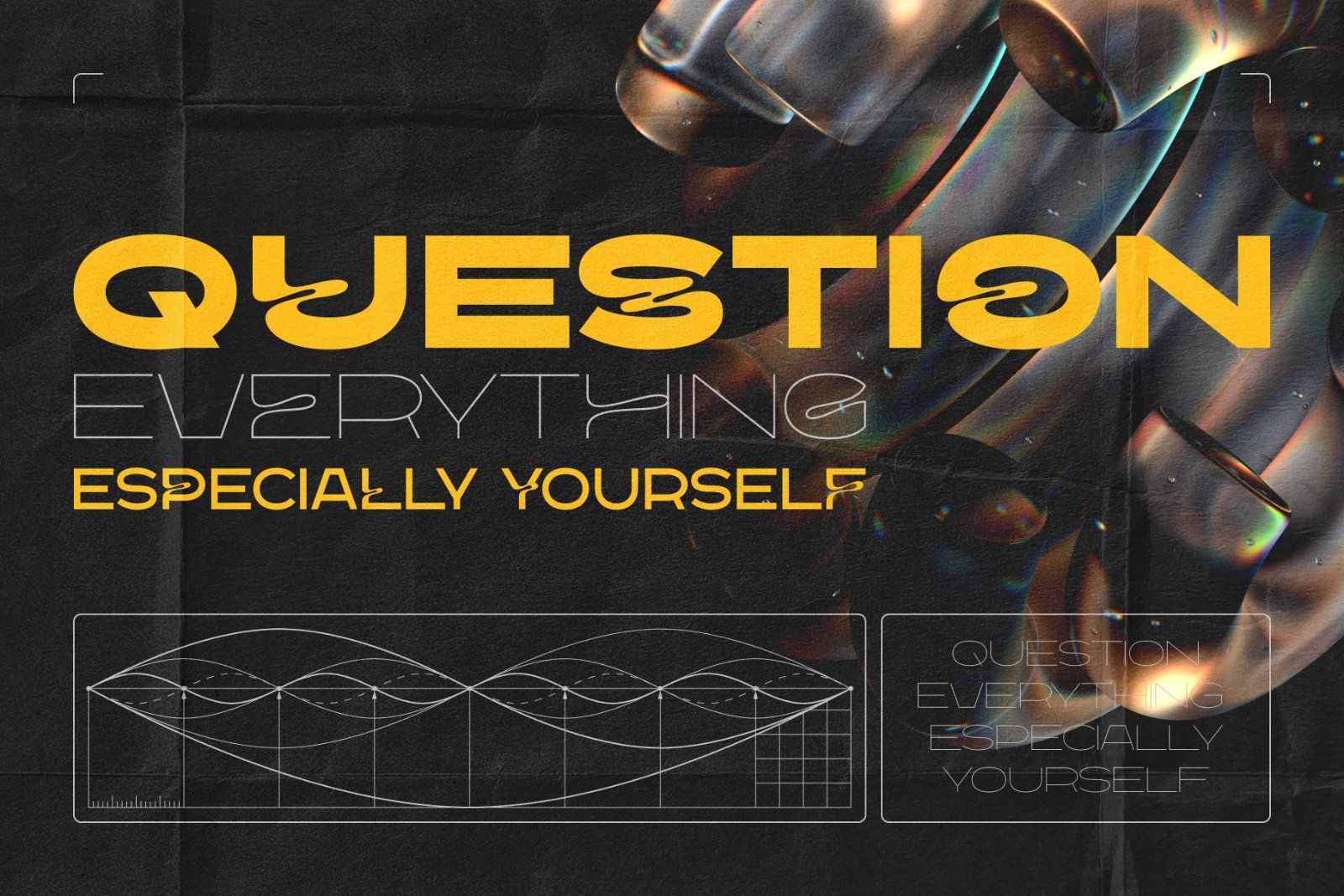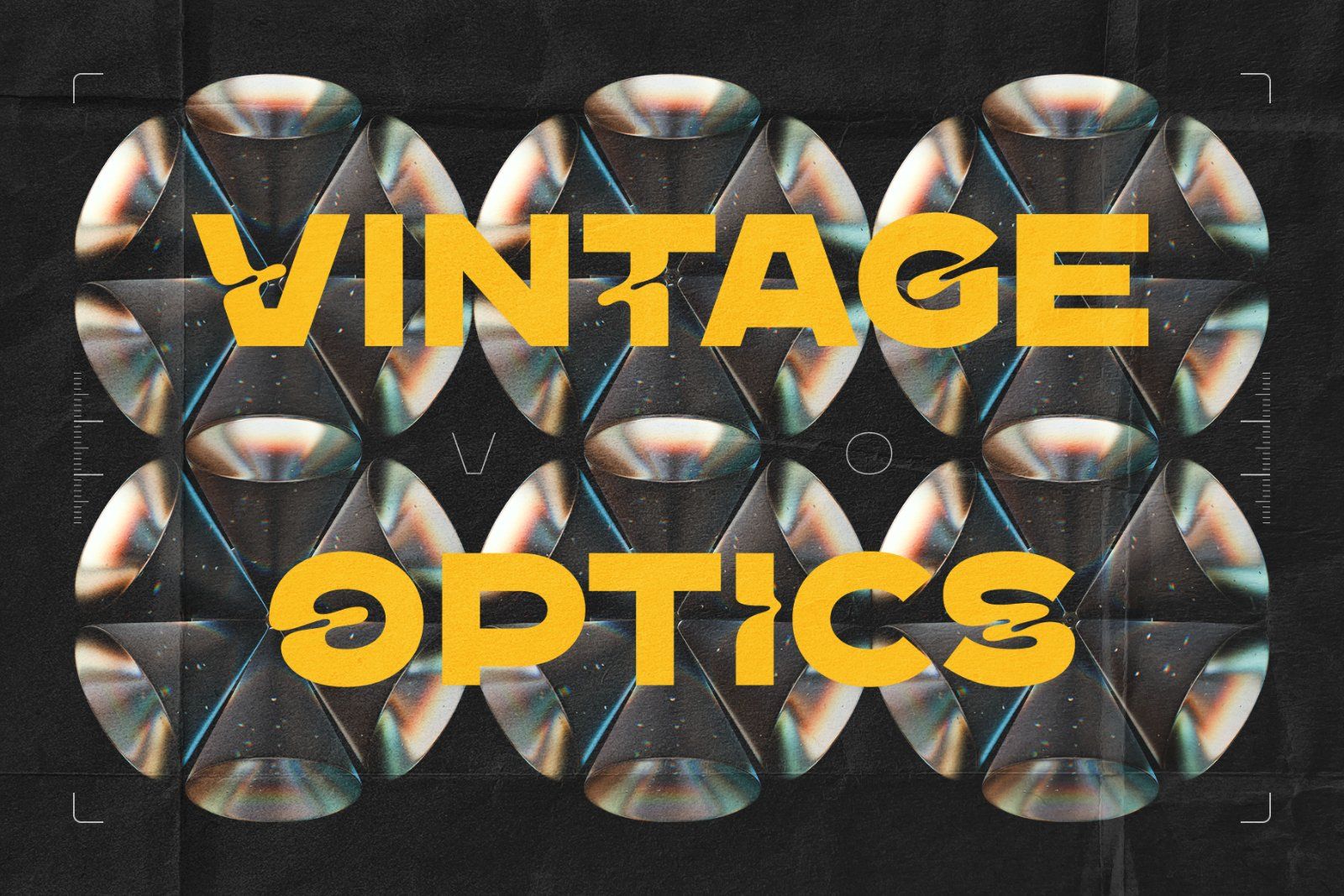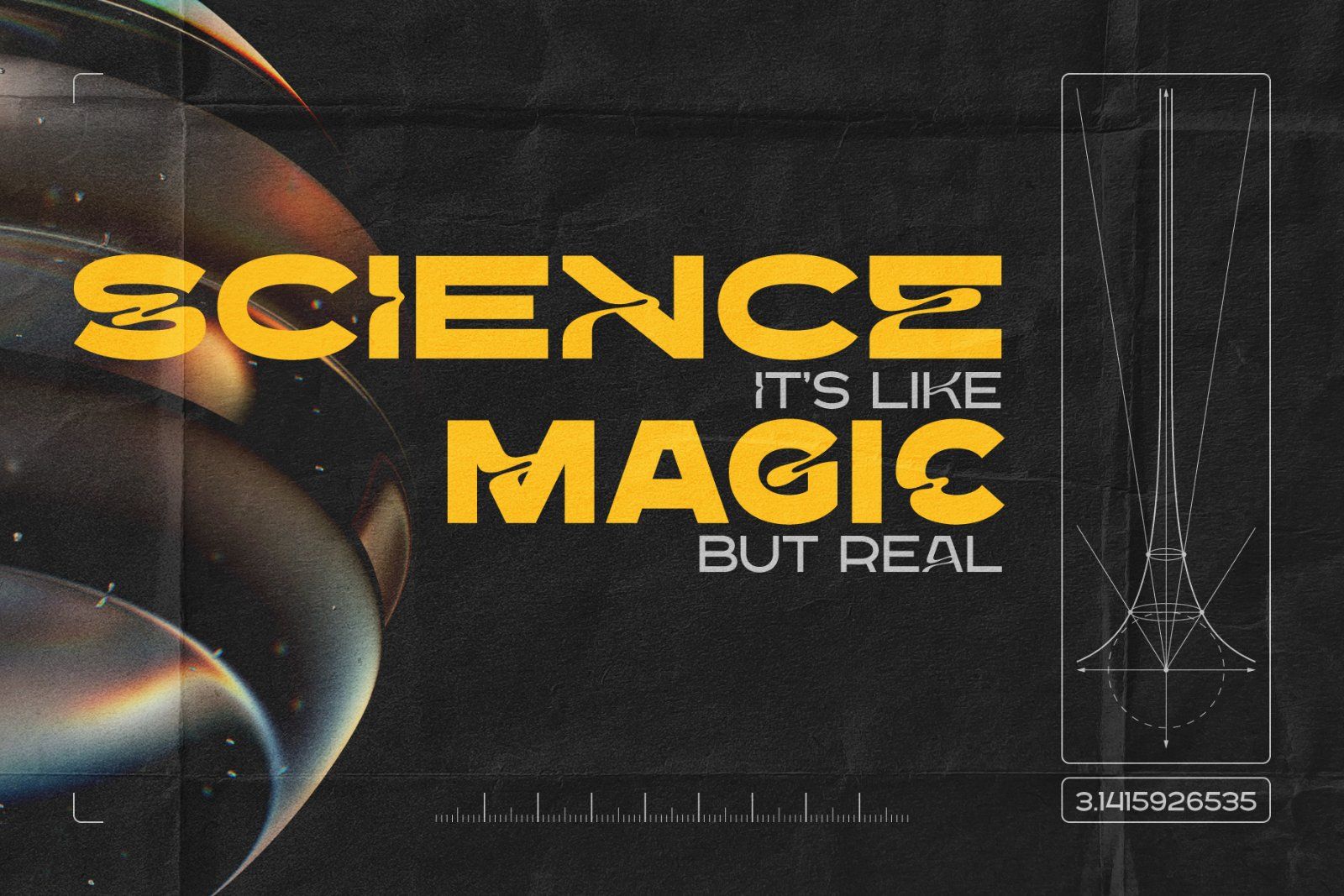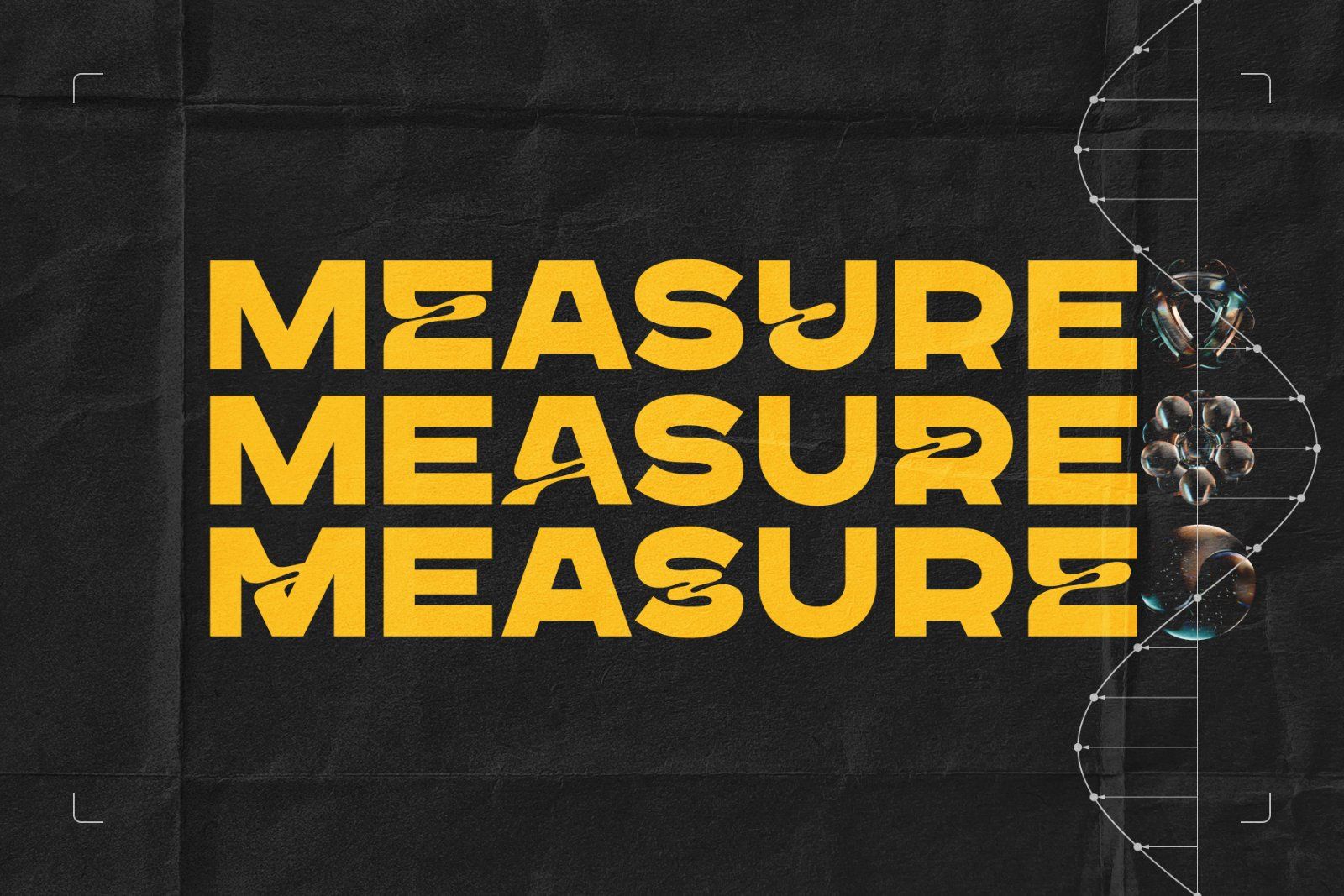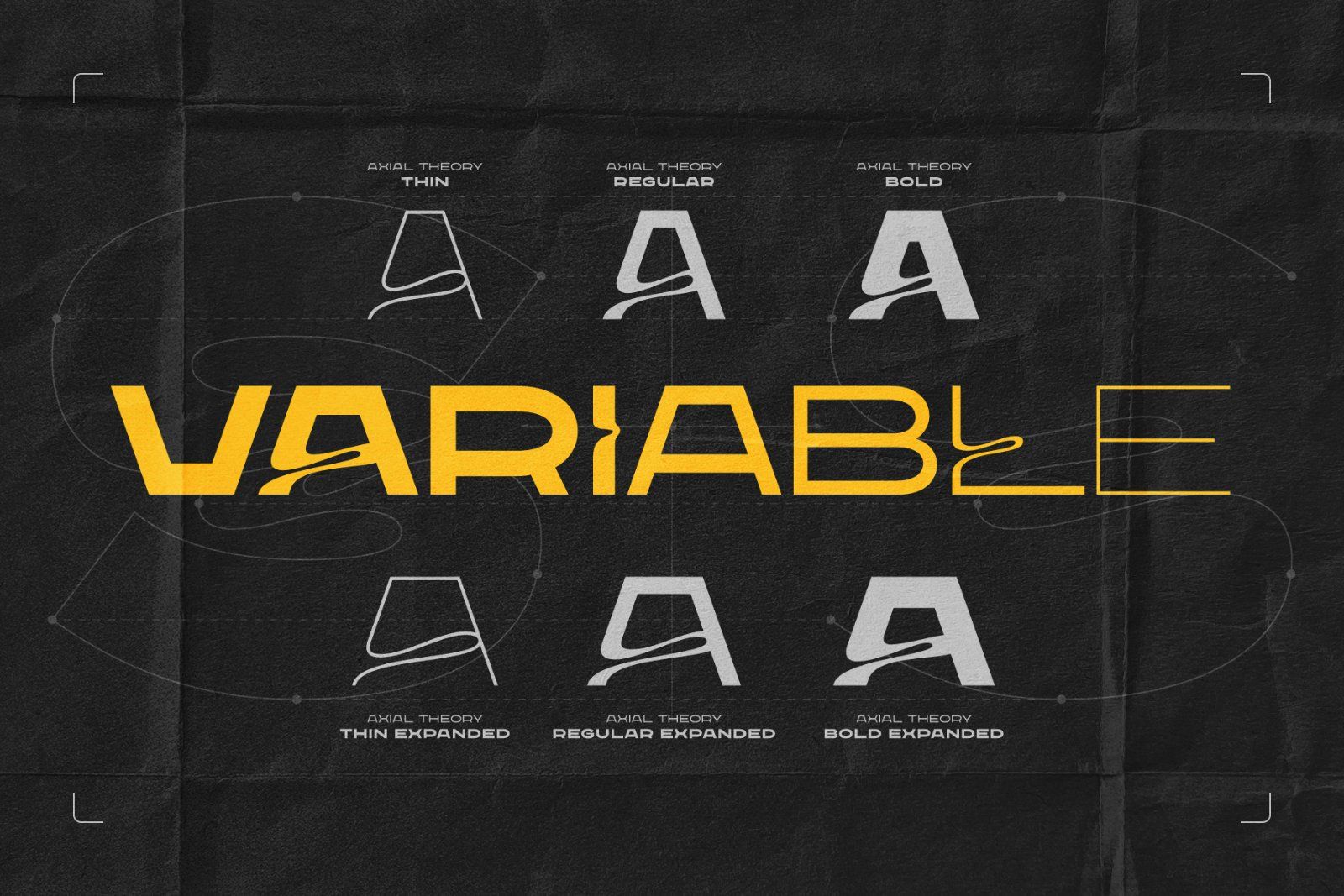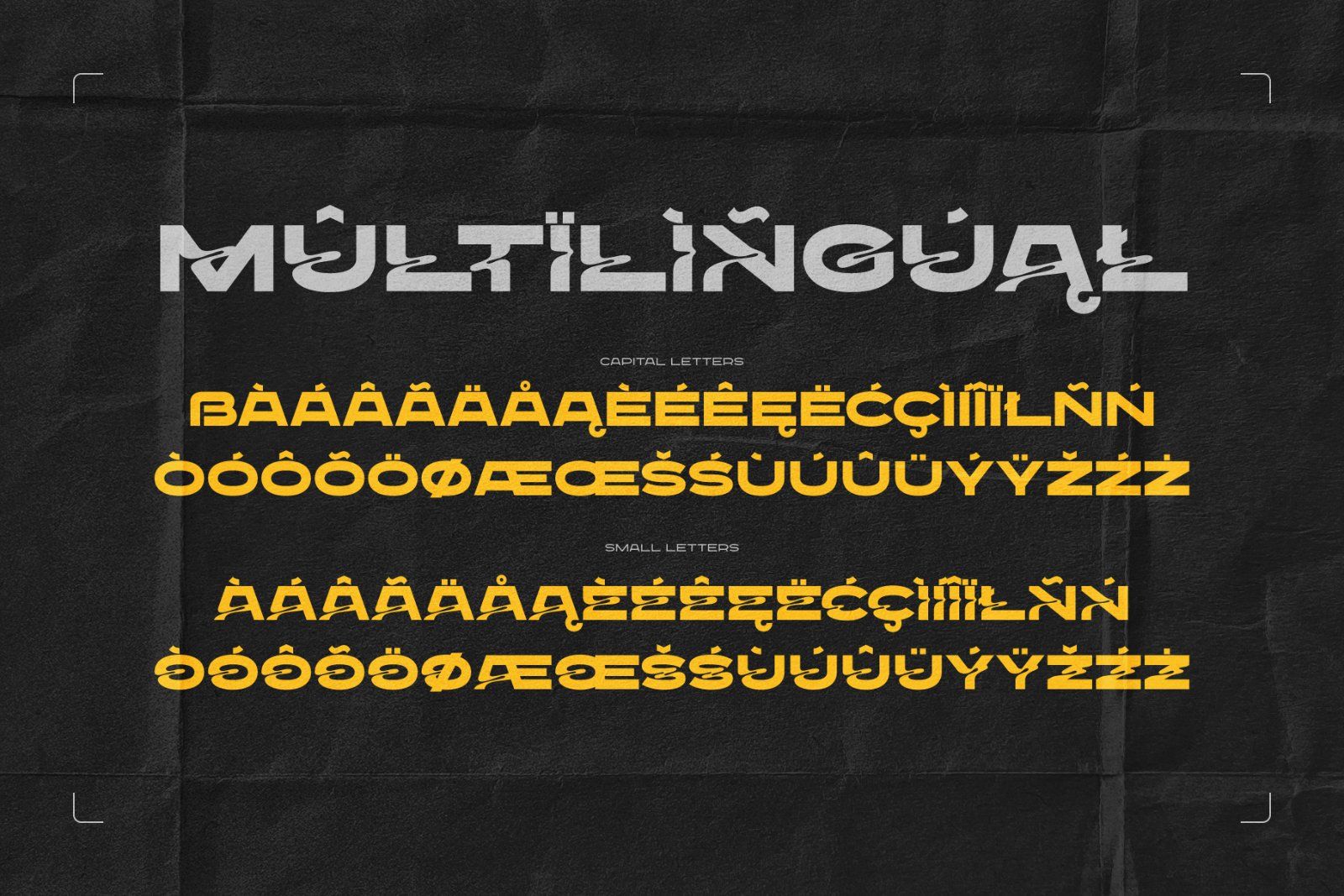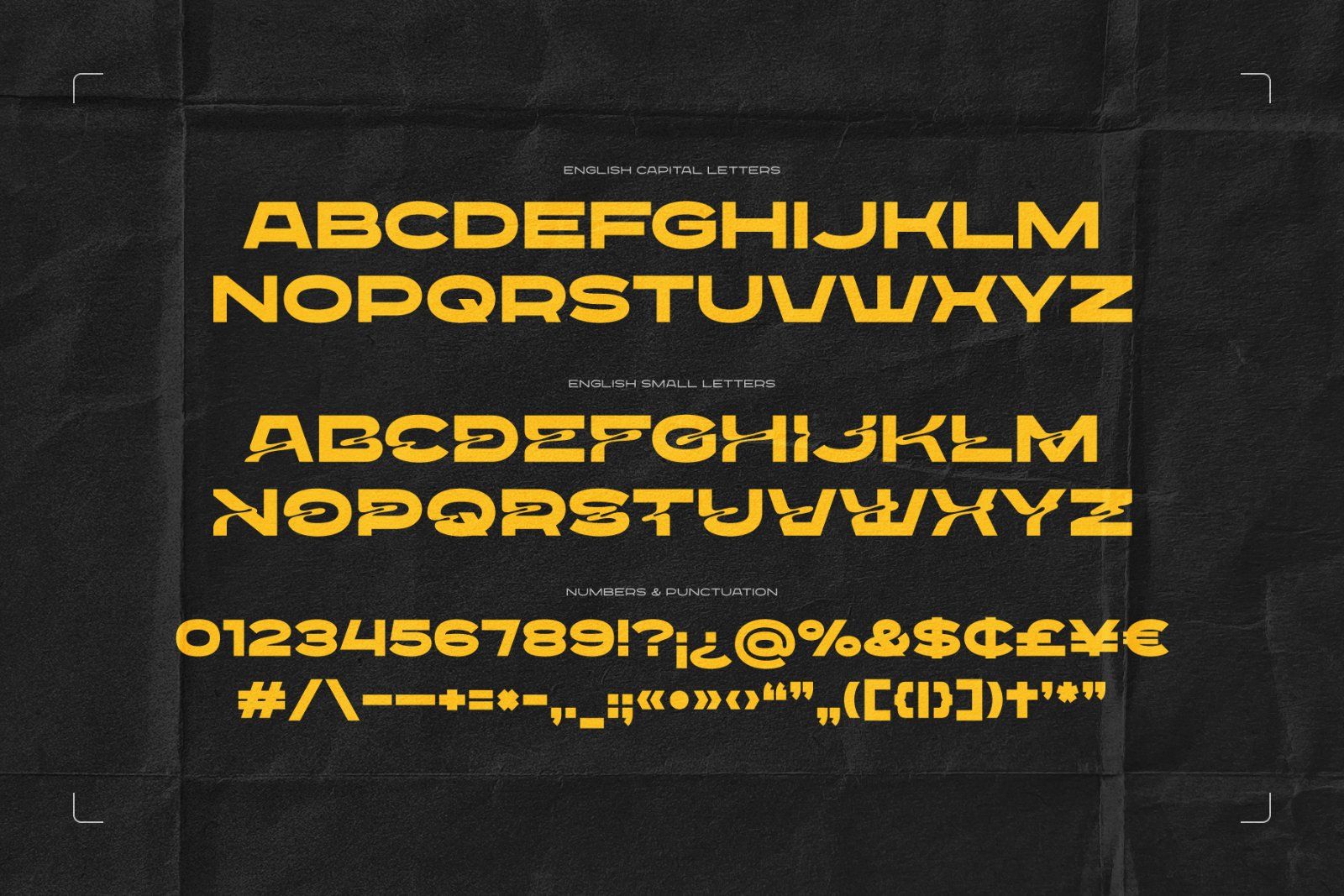
Introducing Axial Theory, a retro futuristic font set. This type family includes three weights, three width variations, and an infinitely flexible variable font. Its nicely curved letterforms bring an original vibe to your text.
Each letter has both a simple and a creative version, which you can access by typing uppercase or lowercase letters. It also offers multilingual support — check out the screenshot to see the available characters.